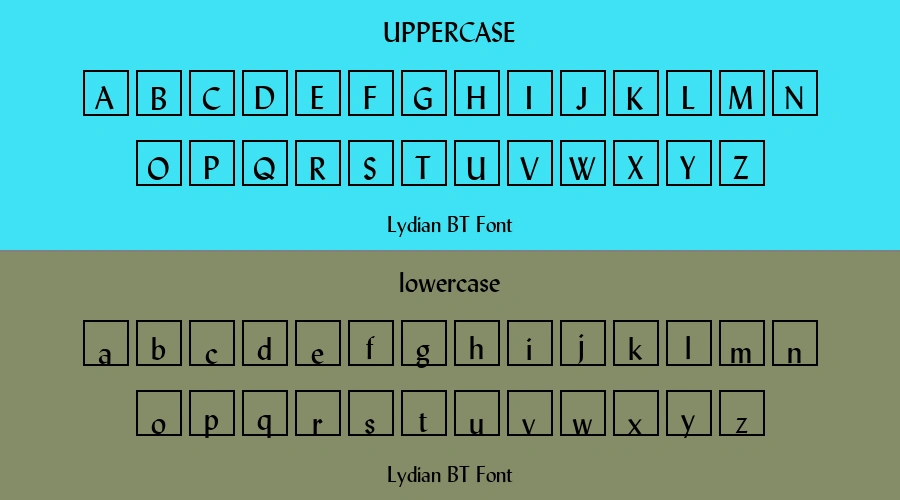
About Lydian BT Font
Lydian BT Font embodies typographic excellence through its masterful combination of original character and professional grade. Created for engineering drawings, this typeface delivers exceptional endurance and user trust across all applications. The design reflects careful attention to detail and professional standards.
Advanced capabilities include distinctive sharp terminals and versatile authentic details, giving designers creative control. When used in technical diagrams, Lydian BT Font exhibits remarkable purchase influence. The harmonious balance between descender depth and engineering heritage sets this typeface apart.